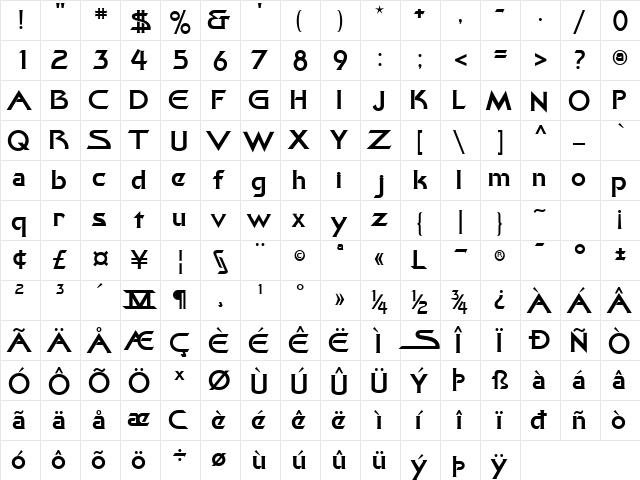
Khan Bold
Design Context for Khan Typeface
Khan takes a measured approach to typography — its balanced proportions and neutral character make it a reliable workhorse for both digital and print work. The heavy weight commands attention and anchors typographic hierarchies.